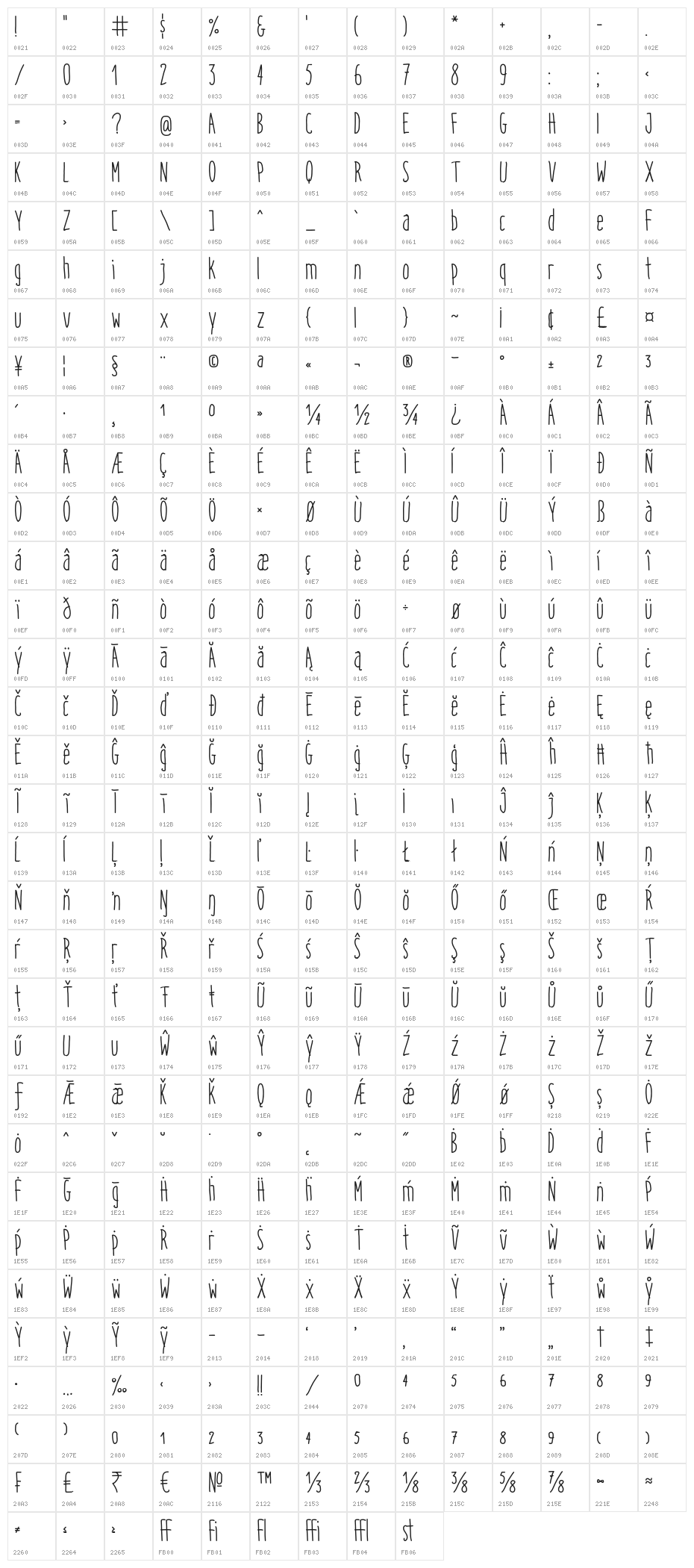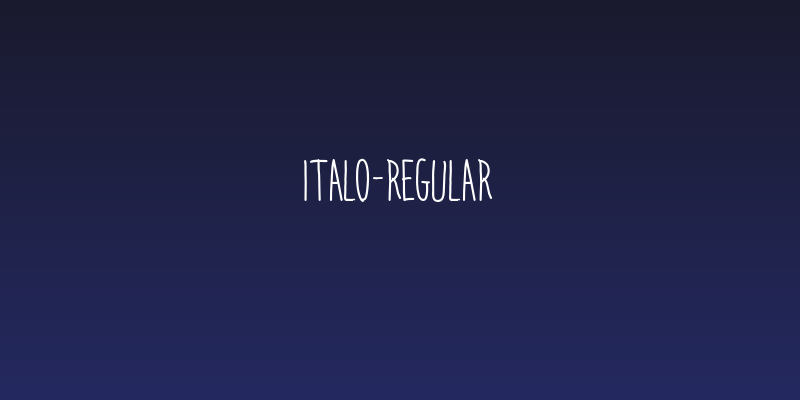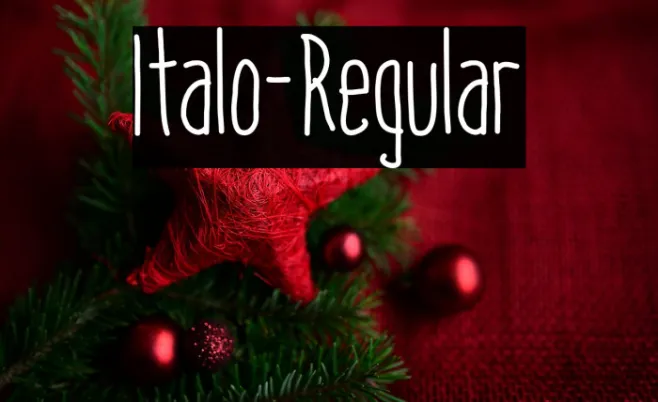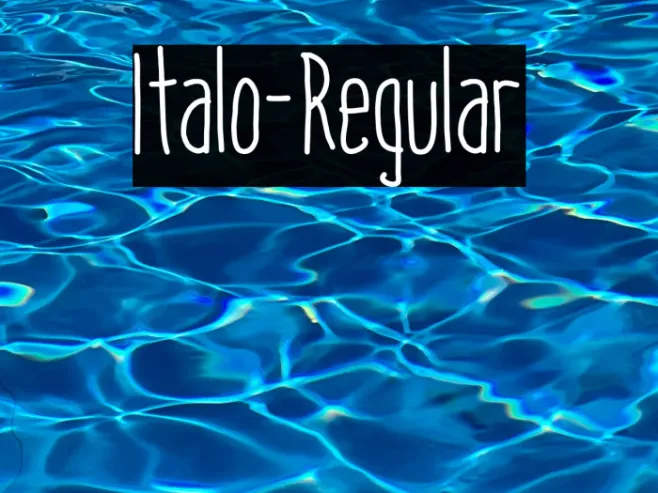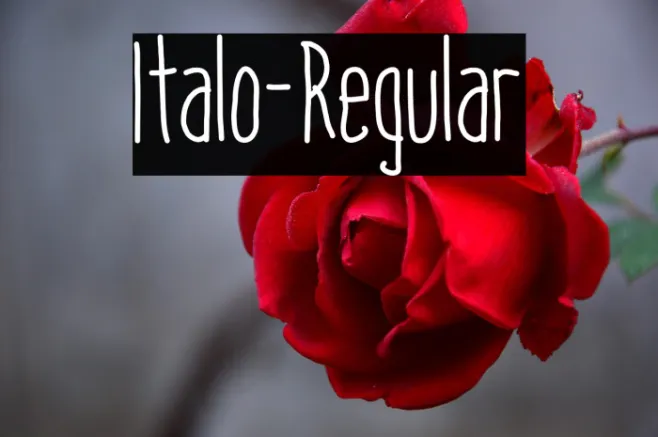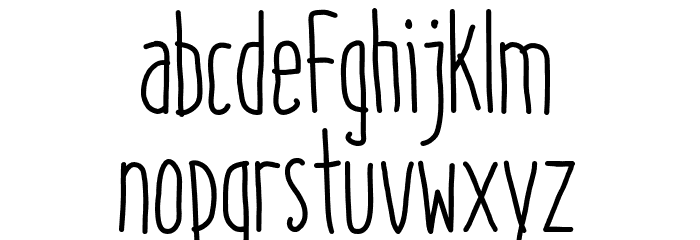
Italo-Regular Font
Italo-Regular Description
This font features a playful and informal style with tall, narrow characters. The strokes are consistent in width, giving it a clean and modern appearance. The uppercase letters are slightly taller than the lowercase, maintaining a uniform height across the alphabet. The numerals are well-proportioned, aligning seamlessly with the overall design. Special characters are distinct and maintain the font's quirky charm. The font's simplicity and legibility make it suitable for various creative projects.